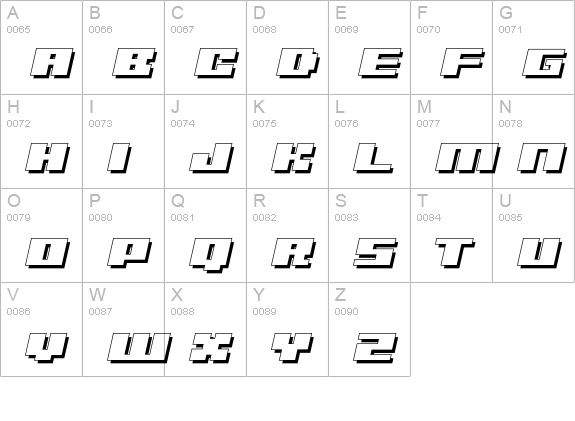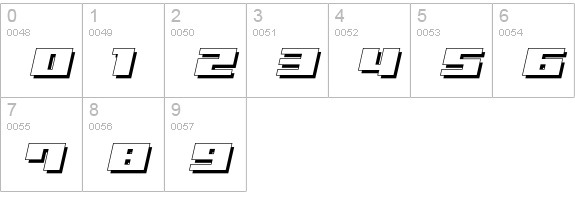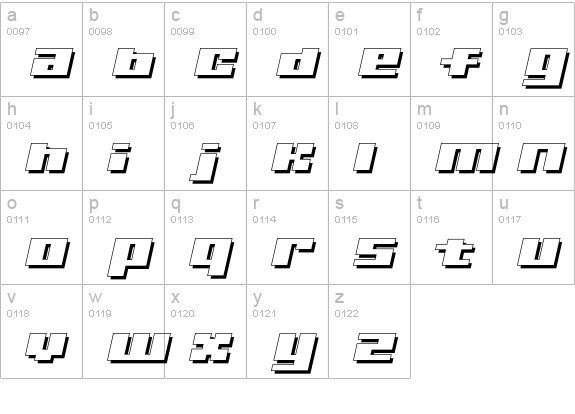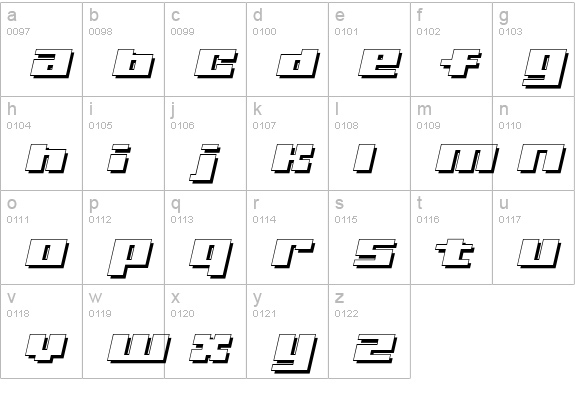
Ultra-SevenItalicW Font Details
Ultra-SevenItalicW is an extreme-weight, display variant in the Ultra typeface family \xE2\x80\x94 well suited to extreme display use where maximum visual weight is required.
Introducing Ultra-SevenItalicW, a stunning and versatile font that is sure to captivate your audience with its unique and futuristic design. This font is perfect for those seeking a modern twist on classic typography, as it effortlessly combines sleek lines and bold curves to create a truly eye-catching aesthetic. Ultra-SevenItalicW not only stands out in terms of its visually appealing style, but it also offers a wide range of functionality. Whether you are designing a logo, crafting a headline, or creating a striking poster, this font's versatility ensures that it can adapt to any project and elevate your design to new heights. One of the most remarkable aspects of Ultra-SevenItalicW is that it is completely free. Yes, you heard it right! This extraordinary font is freely available to download at FontsMarket.com, making it accessible to designers of all levels. With just a few clicks, you can have this exceptional font at your fingertips, ready to enhance your creative endeavors. Ultra-SevenItalicW's sleek and modern design is perfect for projects that demand attention and stand out from the crowd. Its italic style adds a touch of elegance and sophistication, making it ideal for fashion, luxury, and lifestyle brands. Additionally, its legibility ensures that your message will be conveyed with clarity and impact. So why wait? Download Ultra-SevenItalicW today from FontsMarket.com and unlock a world of creative possibilities. Whether you are designing for print or digital platforms, this font will undoubtedly become your go-to choice for creating memorable and visually stunning designs. Don't miss out on this incredible opportunity to elevate your typography game – Ultra-SevenItalicW is here to help you make a bold statement.